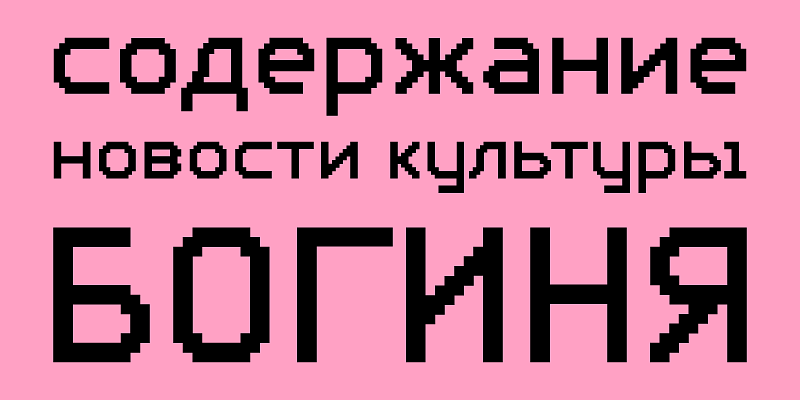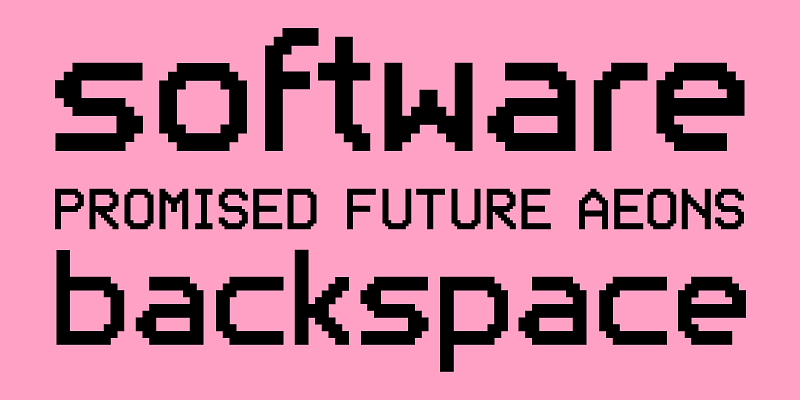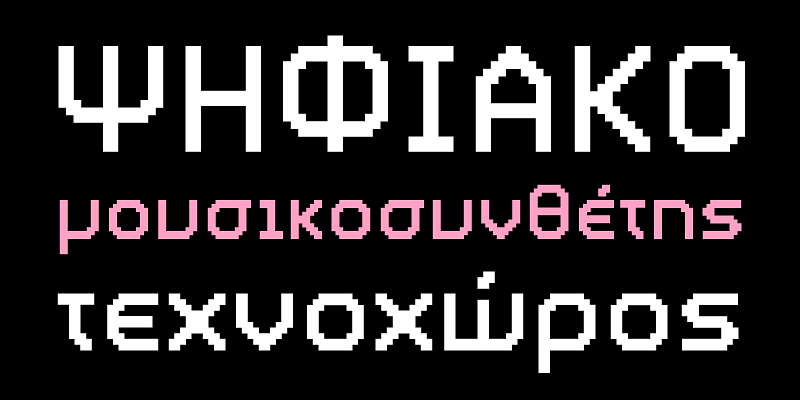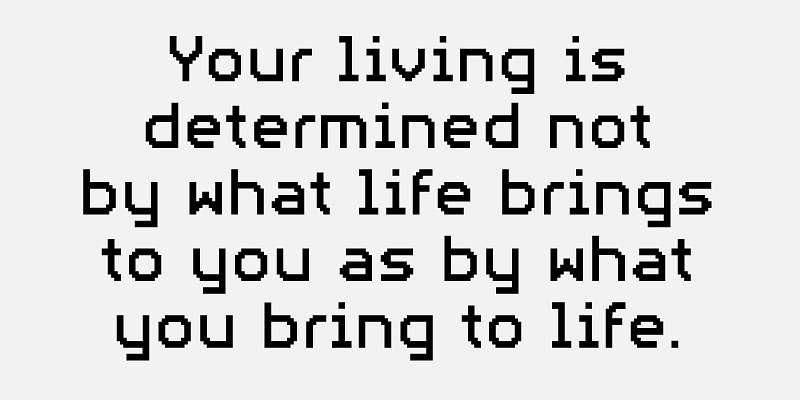
PF Videotext draws inspiration from the text found on dynamic video screens, exuding an aura of modernity and technological finesse. Its design pays homage to the digital age, where text and visuals merge seamlessly to create engaging content. Originally conceived for print applications, PF Videotext effortlessly bridges the gap between the digital and physical realms, offering versatility and adaptability in a rapidly evolving design landscape.
With a keen focus on legibility and readability, PF Videotext ensures that the message remains clear and impactful, even when translated across various media.
Moreover, PF Videotext embraces a vast linguistic range, accommodating the diverse tapestry of European languages including Latin, Greek and Cyrillic, gracefully adapting to ensure consistent communication across borders.